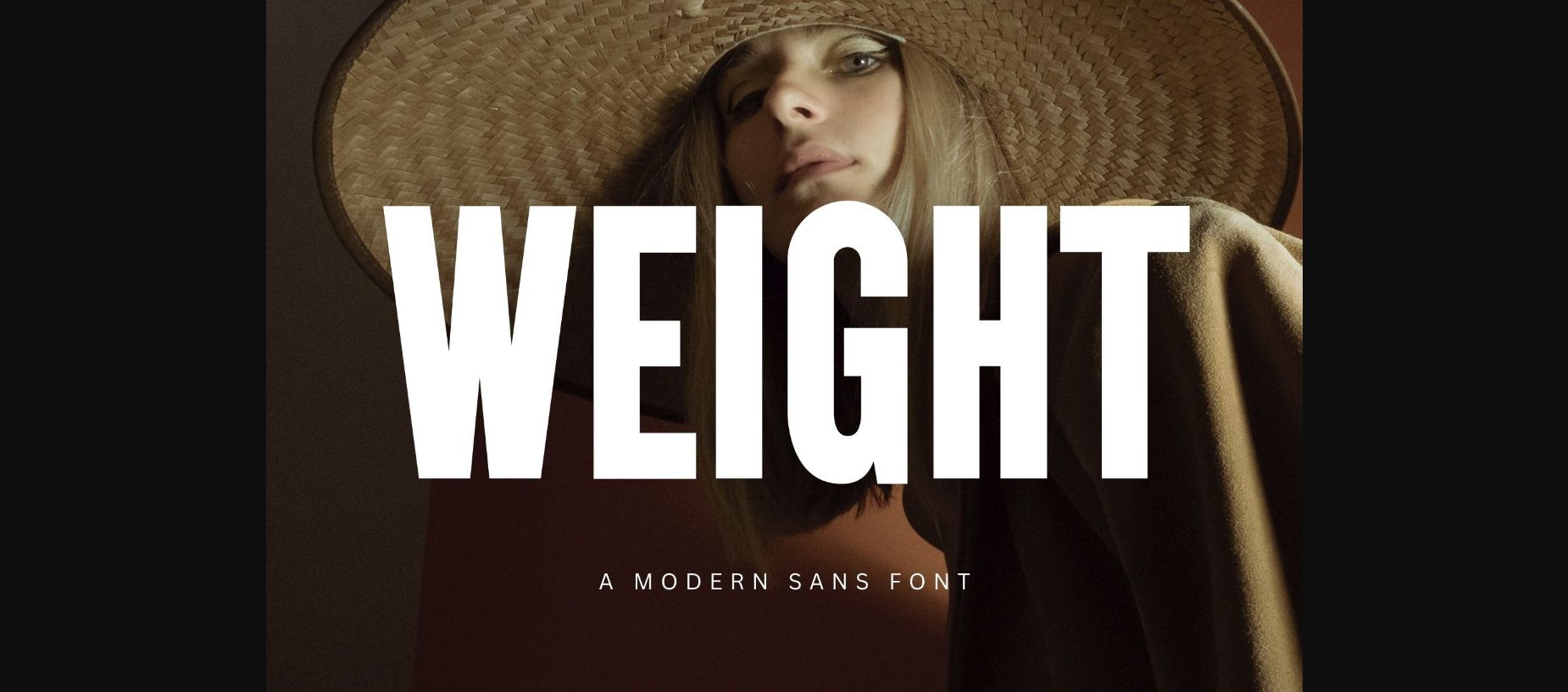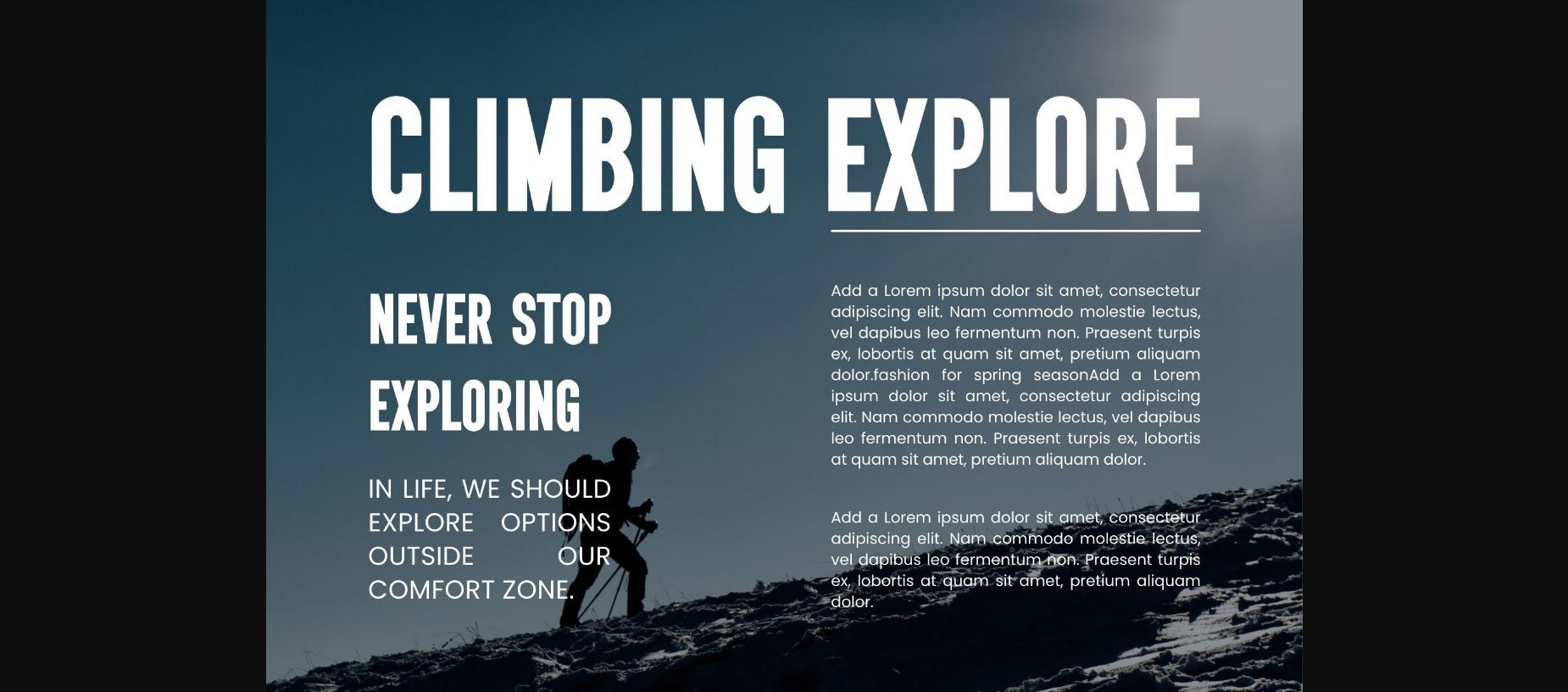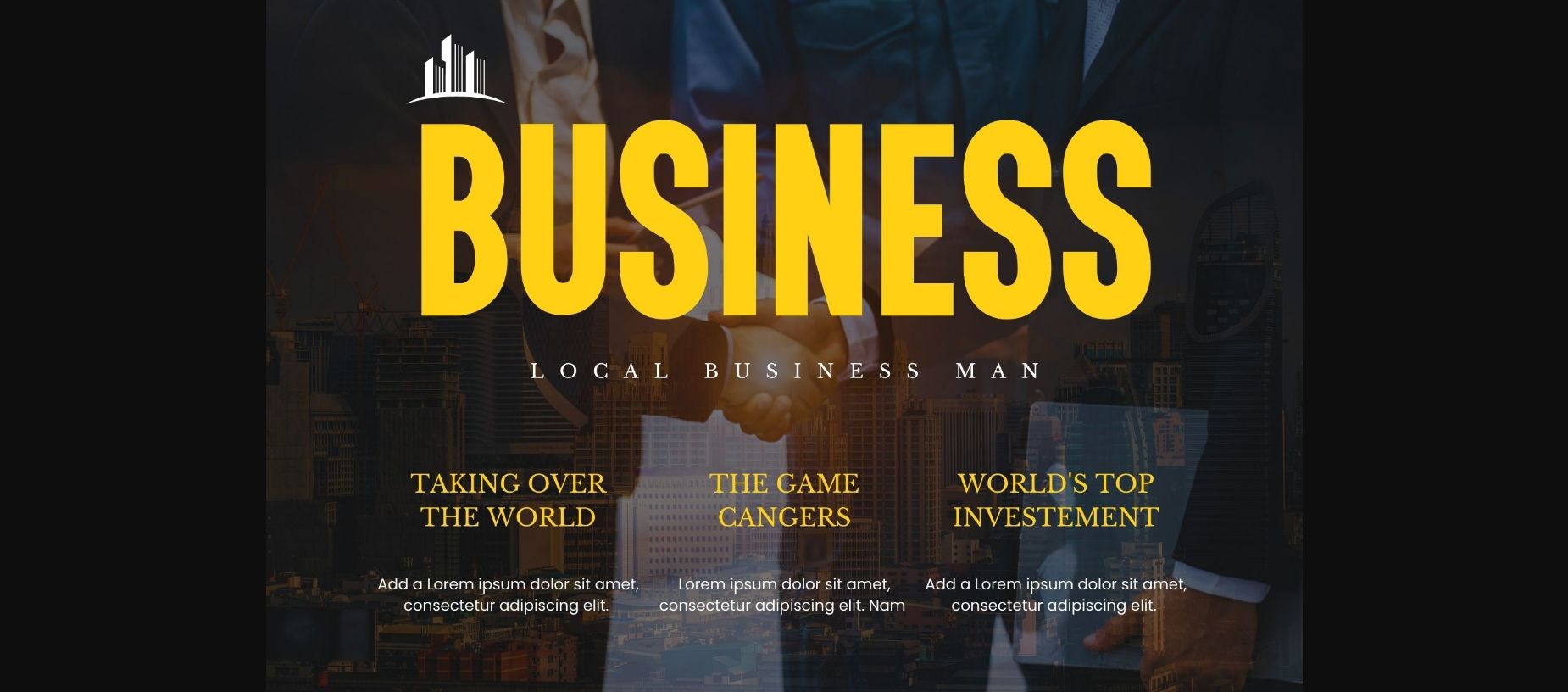
About Weight Font
Weight is a sleek and contemporary sans serif font that exudes professionalism and clarity. Its clean lines and balanced proportions make it an ideal choice for both digital and print designs, ensuring legibility and visual impact. With its versatile and modern aesthetic, Weight is perfect for conveying a sense of sophistication and style in a wide range of projects.